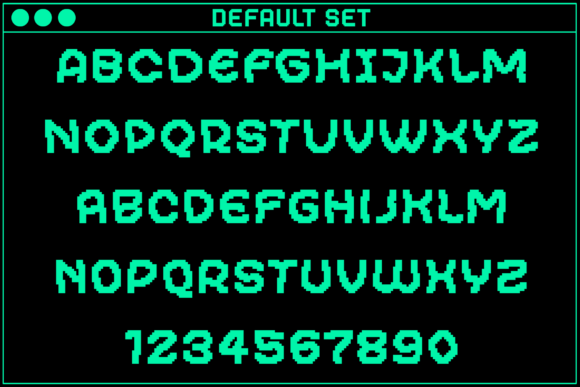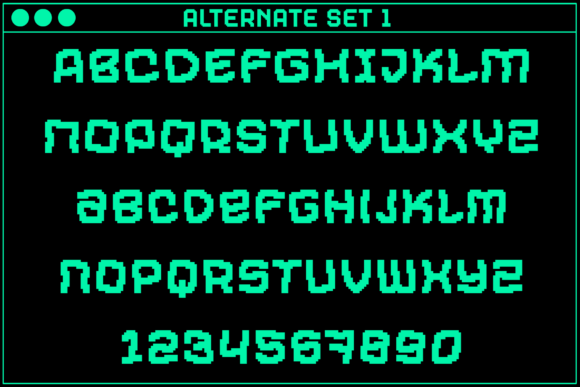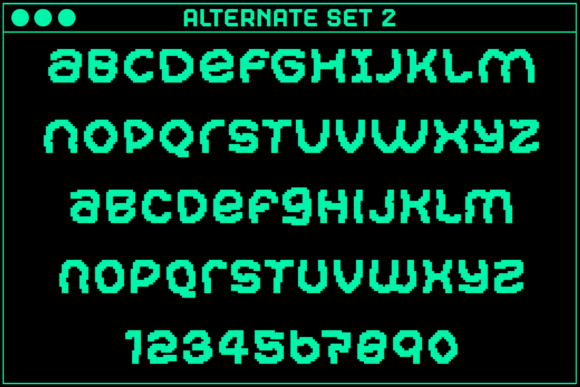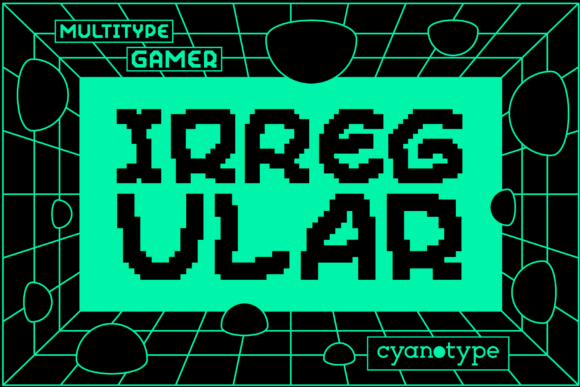
Introduction to Gamer Irregular Font
Gamer Irregular is a cool, uniquely shaped, pixelated display font.
Add a distorted and trendy touch to all of your designs with this unusual pixel font Gamer Irregular is PUA encoded which means you can access all glyphs and swashes with ease.
Key Features of Gamer Irregular Font